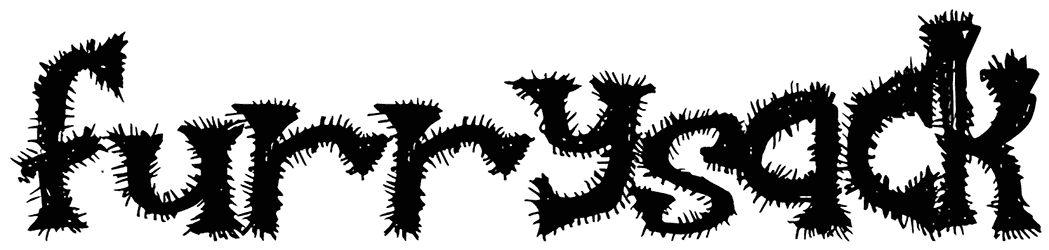
FurrySack Font
The FurrySack font has a unique design that is less commonly seen by viewers. As the font’s name reveals, the letters seem covered with fur. This font does not support capital letters and symbols; thus, you can use it in exceptional cases.
Although this cactus font has a friendly feeling, it can also remind you of a bristly cactus. This may be a significant feature of the FurryStack font, which can have both smooth and harsh textures at the same time.